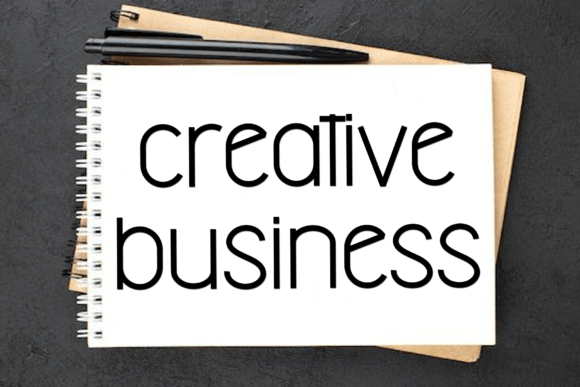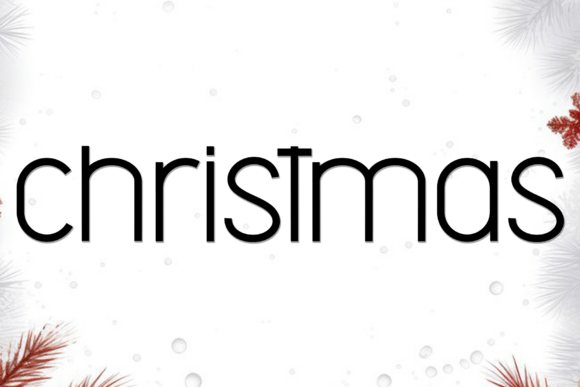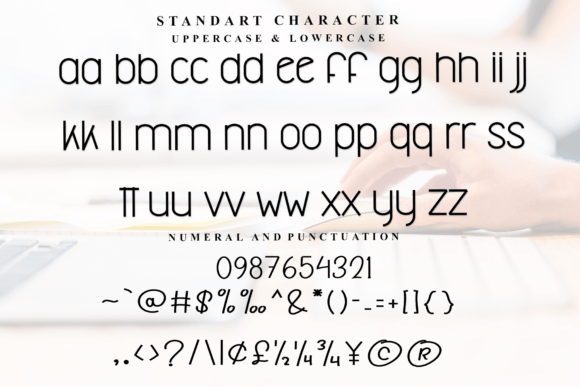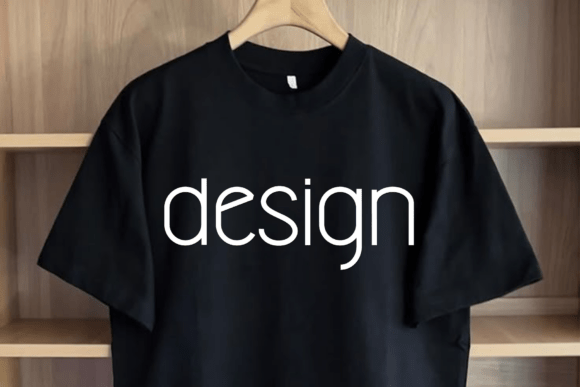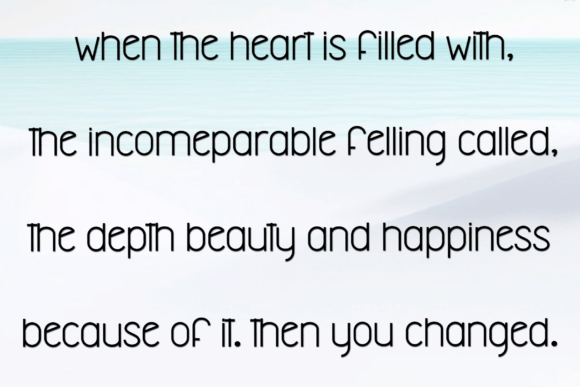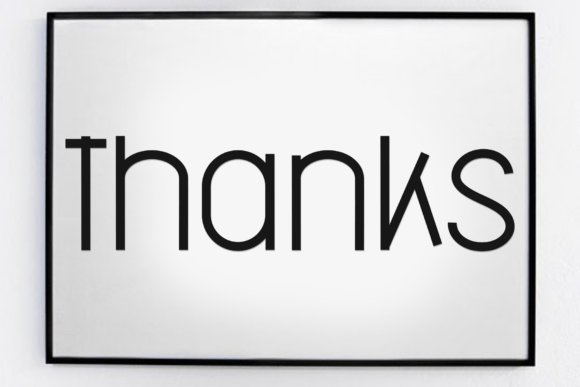
Discover the Charm of Backluck Font: Elevate Your Designs with its Unique Touch
In the world of typography, fonts play a crucial role in making or breaking a design. A well-chosen font can elevate your creative project, making it more engaging and memorable. If you’re a designer, crafter, or simply someone who appreciates the art of typography, you’re in for a treat. Introducing Backluck Font, a beautiful and eye-catching typeface that is sure to capture your heart.
The Distinctive Character of Backluck Font
Backluck Font is designed with a soft, unique touch that sets it apart from other fonts. Its distinctive strokes give it a special character, making it meaningful and versatile for future use. Whether you’re working on a design project, craft, or other creative work, Backluck Font is the perfect choice. Its various characters offer a range of possibilities, allowing you to experiment and push the boundaries of your creativity.
Backluck Font is a versatile typeface that can be used in a wide range of design projects. Whether you’re creating a logo, brochure, or social media graphic, this font is sure to make your design stand out. Its unique character and soft touch make it perfect for crafts, such as handmade cards, invitations, and other paper crafts. With Backluck Font, you can add a personal touch to your creations, making them more special and meaningful.
Enhance Your Designs with Backluck Font
Backluck Font is more than just a typeface – it’s a design solution. Its unique character and versatility make it perfect for designers, crafters, and anyone who wants to add a personal touch to their creations. With Backluck Font, you can:
- Create stunning logos, brochures, and social media graphics that stand out
- Add a personal touch to your handmade cards, invitations, and other paper crafts
- Experiment with different characters and styles to push the boundaries of your creativity
- Enhance your designs with a soft, unique touch that appeals to many audiences
Why Choose Backluck Font?
With so many fonts available, why choose Backluck Font? Here are just a few reasons:
- Unique character: Backluck Font has a distinctive character that sets it apart from other fonts
- Versatility: This font is perfect for a wide range of design projects, crafts, and other creative works
In conclusion, Backluck Font is a beautiful and eye-catching typeface that is sure to elevate your designs. Its unique character, versatility, and compatibility make it perfect for designers, crafters, and anyone who wants to add a personal touch to their creations. With Backluck Font, you can create stunning designs that appeal to many audiences across different artistic and creative fields. So why wait? Discover the charm of Backluck Font today and take your designs to the next level.